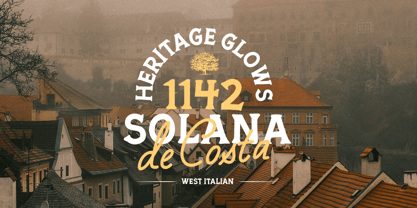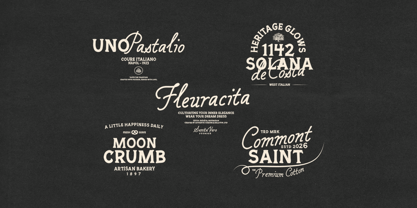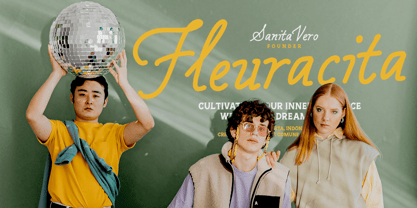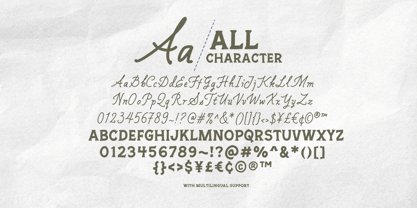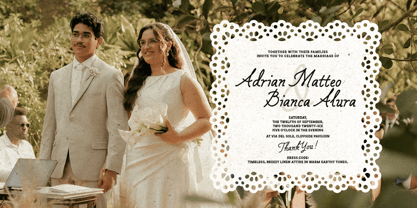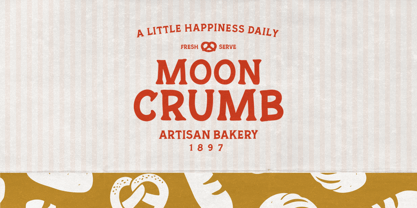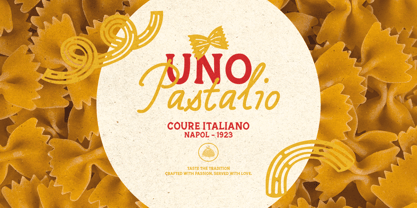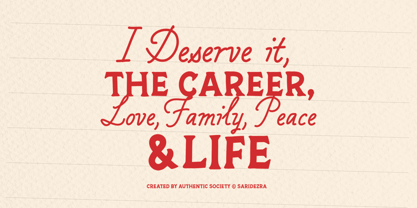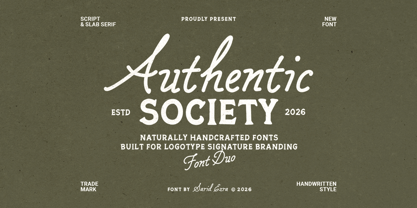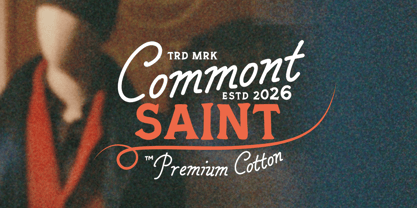
Authentic Society
by Sarid Ezra
The Authentic Society Font Family was designed by Sarid Ezra and published by Sarid Ezra. Authentic Society contains 2 styles and family package options. More about this family
Authentic Society is a handcrafted font duo designed especially for creating distinctive and memorable logotypes. Combining a bold slab serif with a natural handwritten monoline script, this versatile typeface pair works beautifully for a wide range of creative projects, including branding, logos, packaging, quotes, social media graphics, wedding invitations, and other design applications. Its authentic, organic character adds a warm and personal touch, helping your work feel more unique, handcrafted, and visually engaging. Carefully designed to balance elegance and readability, Authentic Society makes it easy to create eye-catching typography with a genuine artisanal feel. The font duo also includes multilingual support, making it suitable for both local and international design projects.